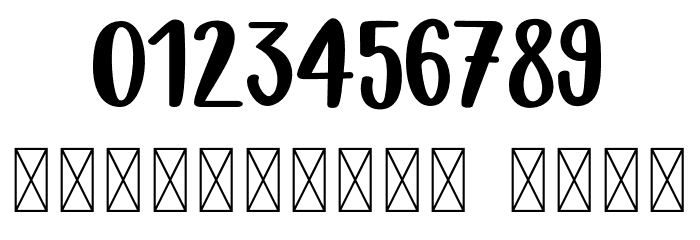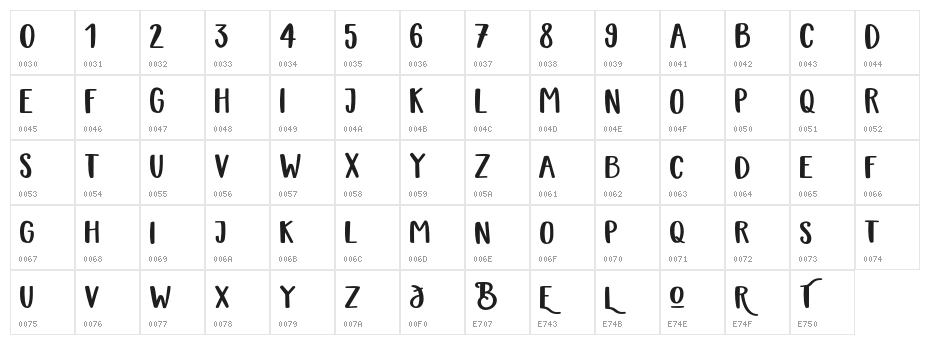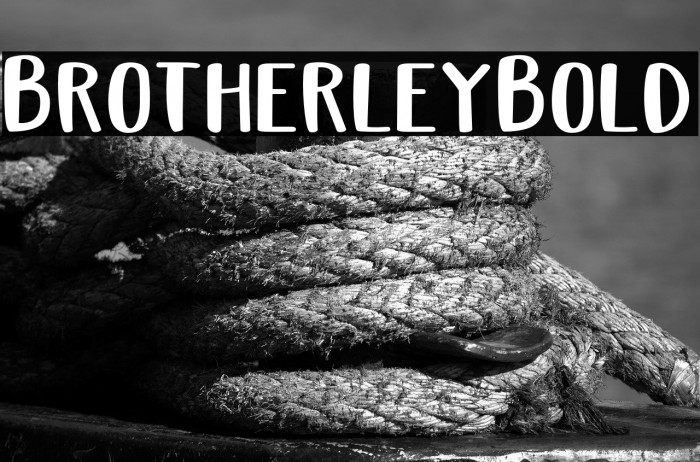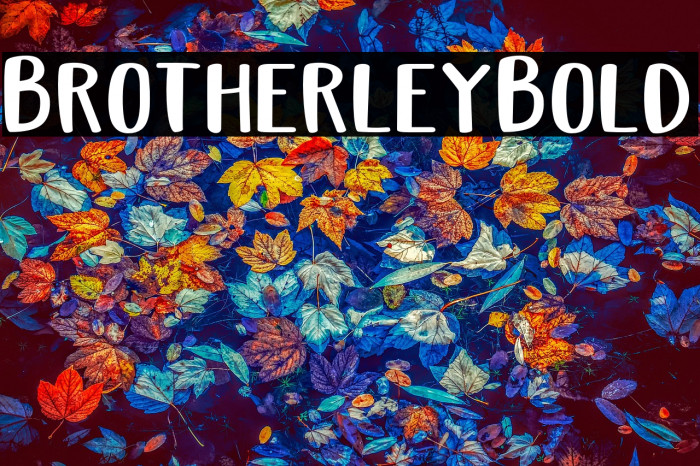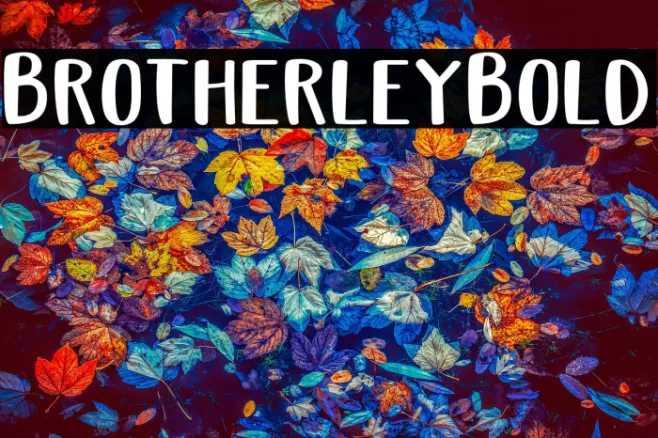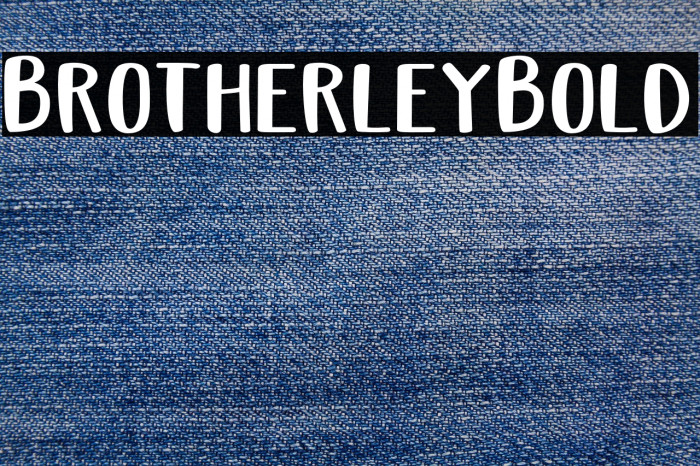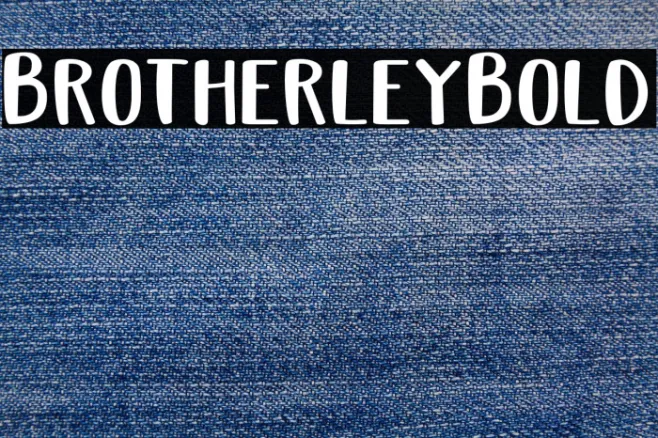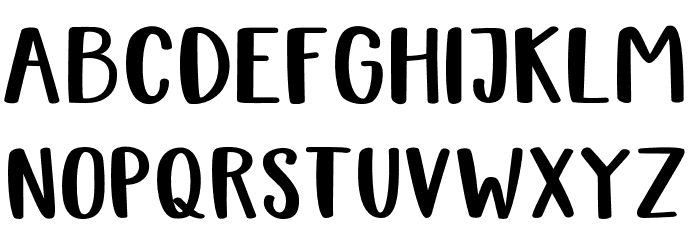
Brotherley-Bold Font
Brotherley-Bold Description
This font features a bold and playful style with rounded edges and a hand-drawn aesthetic. The characters are slightly condensed, giving a compact appearance while maintaining readability. The uppercase and lowercase letters share a consistent design, with a slight slant that adds a dynamic feel. The numbers are well-proportioned and match the overall style, making them suitable for various applications. The special characters are designed to complement the letters, maintaining the same playful and bold characteristics. This font is ideal for projects that require a friendly and approachable look.
| Proposed Projects | Great for children's books, playful branding, posters, and social media graphics. |